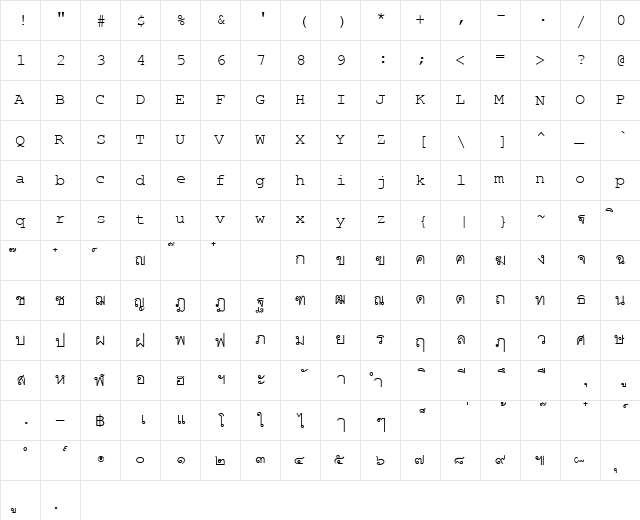
PhaisarnMono Normal Font Preview
PhaisarnMono Normal
Design Context for PhaisarnMono Typeface
PhaisarnMono brings the precise, column-aligned rhythm of monospaced typography to designs that value technical clarity and systematic order.